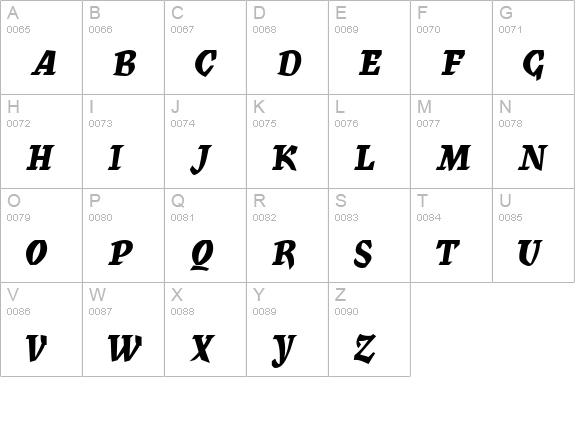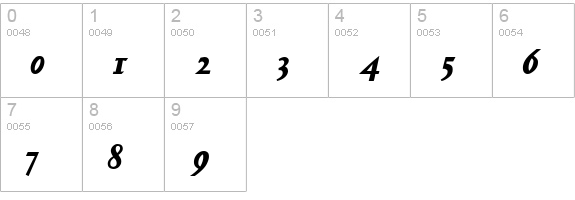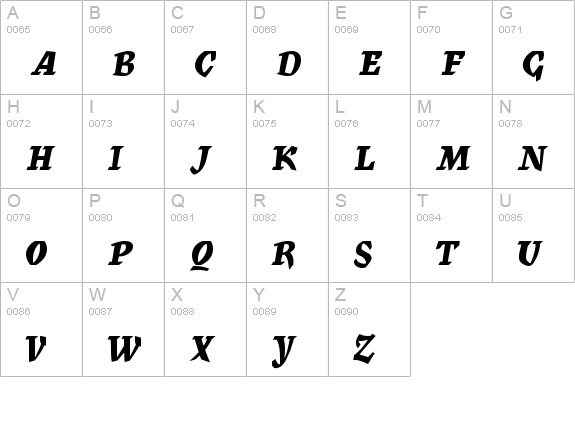
Mercurius MF Font Details
Mercurius MF is a modern and elegant font that exudes sophistication and versatility. Its sleek lines and balanced curves make it perfect for a wide range of design projects, from branding to editorial design and everything in between. This versatile font is sure to add a touch of refinement to any project it graces. What's even better is that Mercurius MF is available for free download at FontsMarket.com. This means that you can easily access this stunning font and incorporate it into your designs without any cost. Don't miss out on the opportunity to enhance your work with the timeless appeal of Mercurius MF. Download it today and elevate your design projects to new heights.